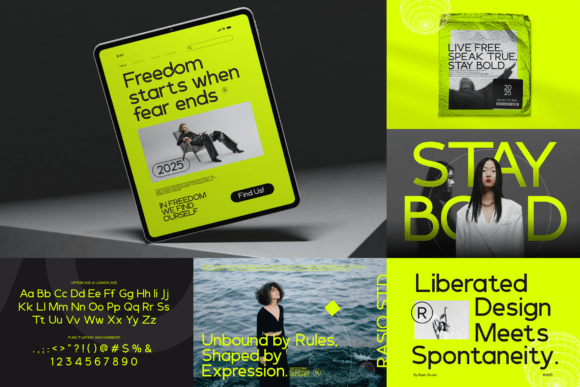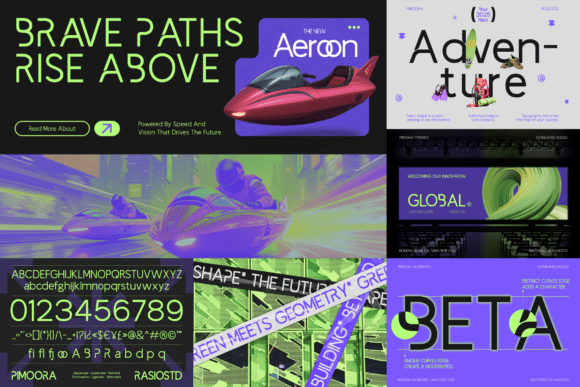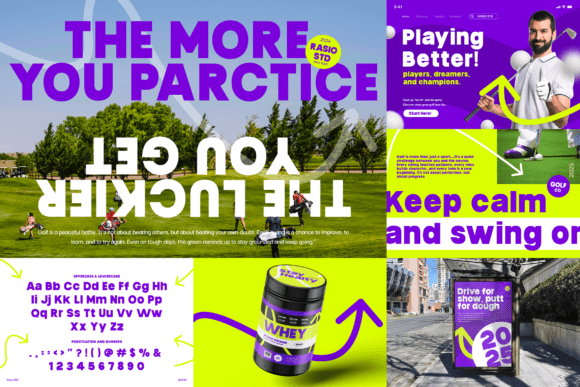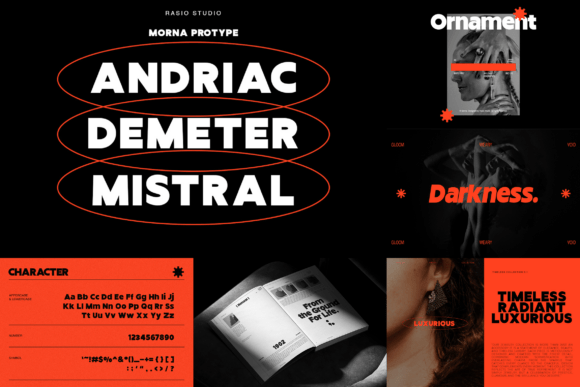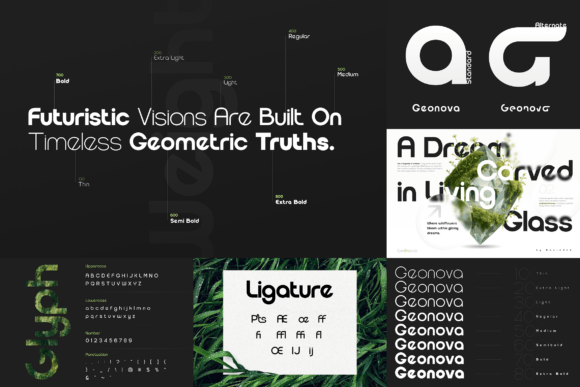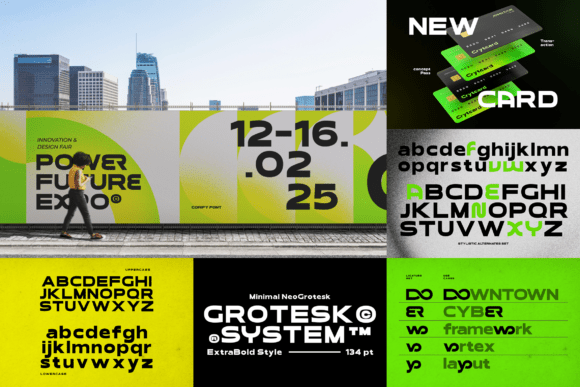
Introduction to Massive Geometric Bundle Font
Remember the moment when you finally land on the perfect design element that takes your creative project from bland to grand? For designers, it’s a moment of pure joy. You’ve spent hours scouring through design resources, only to stumble upon that one game-changing font that elevates your entire visual identity. The Massive Geometric Bundle Font is that elusive find, packed with 20 premium geometric sans serif typefaces designed to deliver precision, clarity, and versatility in every design.
Whether you’re working on a free download project or a high-end commercial campaign, this all-in-one collection is your go-to design resource. With its clean, modern aesthetic and excellent readability, the Massive Geometric Bundle Font is perfect for both digital and print applications. From bold headlines to minimalist layouts, this bundle has everything you need to create a professional and contemporary visual identity.
Key Features of Massive Geometric Bundle Font
- Comprehensive Design Resource: This font bundle offers a wide range of geometric fonts, ideal for designers working on creative projects.
- High-Quality Fonts: Each font in the bundle has been designed with precision and care, ensuring a high level of quality and consistency.
- Perfect for Creative Projects: The Massive Geometric Bundle Font is ideal for use in creative projects, such as branding, advertising, and packaging design.
Honest Review: Massive Geometric Bundle Font
As a designer, I’m always on the lookout for high-quality design resources to elevate my creative projects. The Massive Geometric Bundle Font is a great find, offering a comprehensive collection of geometric fonts that are perfect for modern designs.
- A wide range of geometric styles to suit different design needs
One of the standout features of this font bundle is its versatility. Whether you’re working on a branding project, a digital product, or a graphic design, the Massive Geometric Bundle Font has got you covered.
Overall, I’m impressed with the Massive Geometric Bundle Font. It’s a great resource for designers looking for high-quality geometric fonts. With its free download and transparent background option, it’s a must-have for any creative project.
The Massive Geometric Bundle Font is ideal for use in a variety of creative projects, including graphic design, digital art, and marketing materials. Some common use cases include:
- Creating custom social media graphics
- Designing marketing materials such as brochures and flyers
- Creating custom icons and graphics for websites and apps